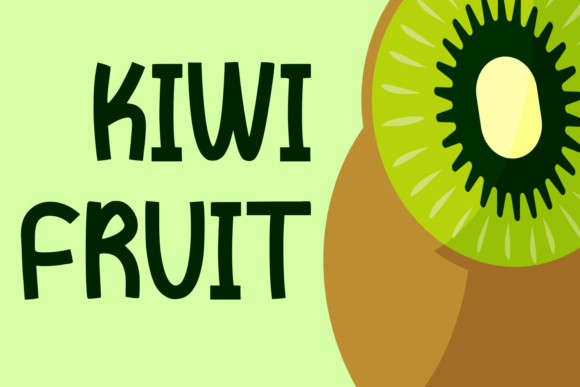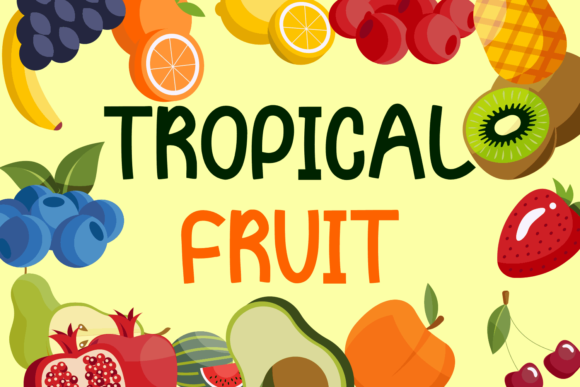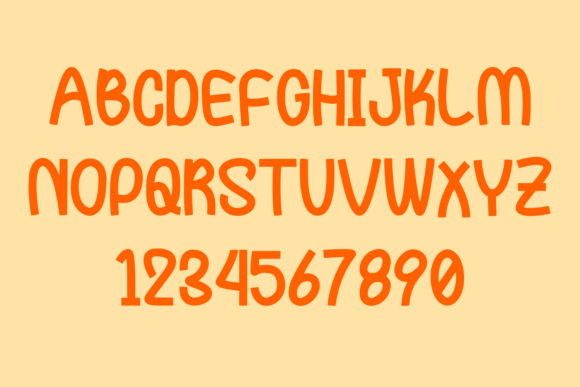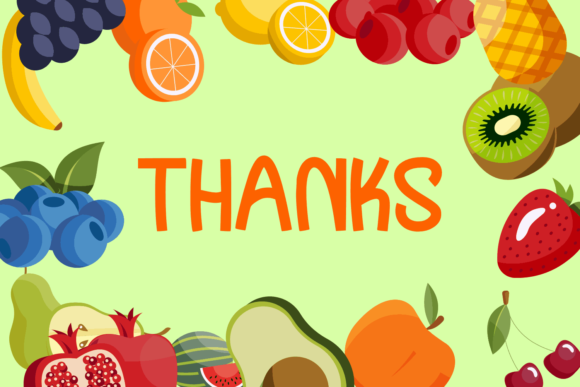
The Perfect Font for a Little Creativity
Who hasn’t had that moment when you’re working on a design project and you just can’t seem to find the right font? You’ve got your standard sans-serif, your classic serif, but nothing seems to capture the playful vibe you’re going for. Well, let me tell you a secret: Funny Orange Font is about to become your new best friend.
This delightful display font is specifically designed for those moments when you want to add a dash of whimsy to your project. With its neat lettering and fun design, Funny Orange Font is perfect for cartoon-related designs, children’s games, books, or any creation that requires a cute touch.
As a designer, you know how valuable a great font can be. Funny Orange Font is more than just a pretty face – it’s a versatile tool that can elevate your designs and bring a smile to your audience’s face. Whether you’re working on a project for kids or just want to add a little fun to your branding, Funny Orange Font is an amazing choice.
Funny Orange Font Key Features
- Font Family: Funny Orange (a unique, custom-designed font)
- Unique Characteristics: Features a playful, hand-drawn style with bold lines and vibrant orange color scheme
Review of “Funny Orange Font”
Overall, I’m impressed with the uniqueness of “Funny Orange Font”. The design is quirky and attention-grabbing, making it perfect for titles and headings that need a pop of personality. ✨ I love how the font’s orange hue adds a fun and playful touch to any design project.
Here are some things that I think work well with this font:
- Uniqueness: “Funny Orange Font” stands out from more traditional fonts and adds a touch of whimsy to any design.
- Playfulness: The font’s orange color is infectious and can add a sense of fun to any project.
- Flexibility: While I wouldn’t recommend using this font for large blocks of text, it’s perfect for titles, headings, and other design elements that need a bit of flair.
- Readability: Due to the font’s playful nature, it can be difficult to read for extended periods of time. I recommend using it sparingly and in combination with more traditional fonts.
- Limited use cases: While “Funny Orange Font” is perfect for titles and headings, it may not be the best choice for body text or other design elements that require a more serious tone.
Overall, I think “Funny Orange Font” is a fun and quirky addition to any designer’s toolkit. While it may not be suitable for every project, it’s perfect for those looking to add a bit of personality and whimsy to their designs. ⚠️ Just be sure to use it thoughtfully and in combination with more traditional fonts to ensure maximum readability and impact.
The Funny Orange Font is ideal for:
- Creating playful and whimsical designs.
- Adding a touch of humor to your content.
- Designing kids’ party invitations or materials.
Pair the Funny Orange Font with other playful fonts or graphics for a cohesive design.